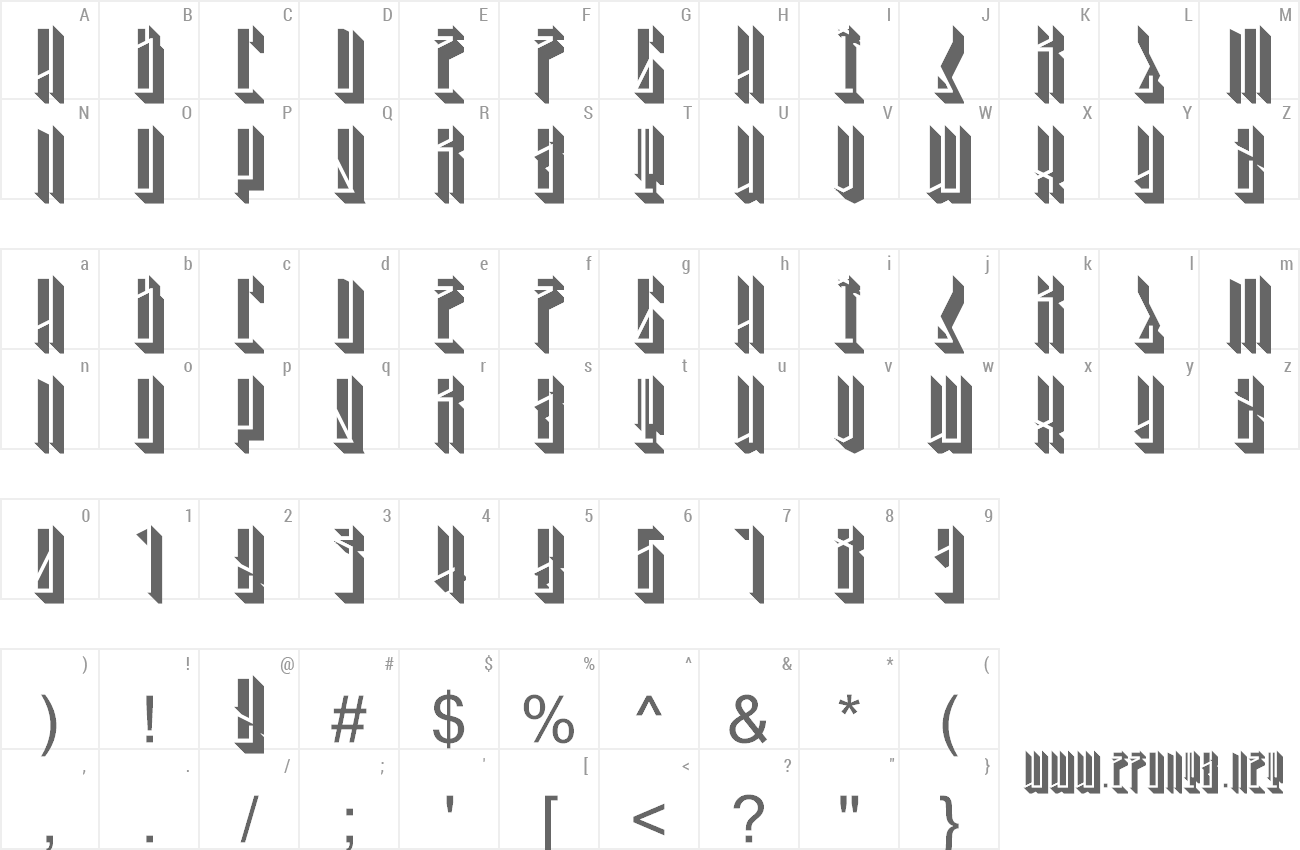
Tall Boy 3D is a 3D shadow version of our font Tall Boy West. The 3D effect is inspired by the cover of the novel The Amazing Adventures of Kavalier & Clay, by Michael Chabon, as applied to our Tall Boy West font. The typeface is by far the most challenging font project we have ever worked on. Tall Boy 3D v1.0 has been made available free for personal use. Tall Boy 3D Regular v1.10 adds extended language support, and corrects the metrics. The updated typeface is available exclusively through our store: http://outofstepfontco.com/collections/all/products/tall-boy-3d-regular https://www.facebook.com/OutOfStepFontCompany |